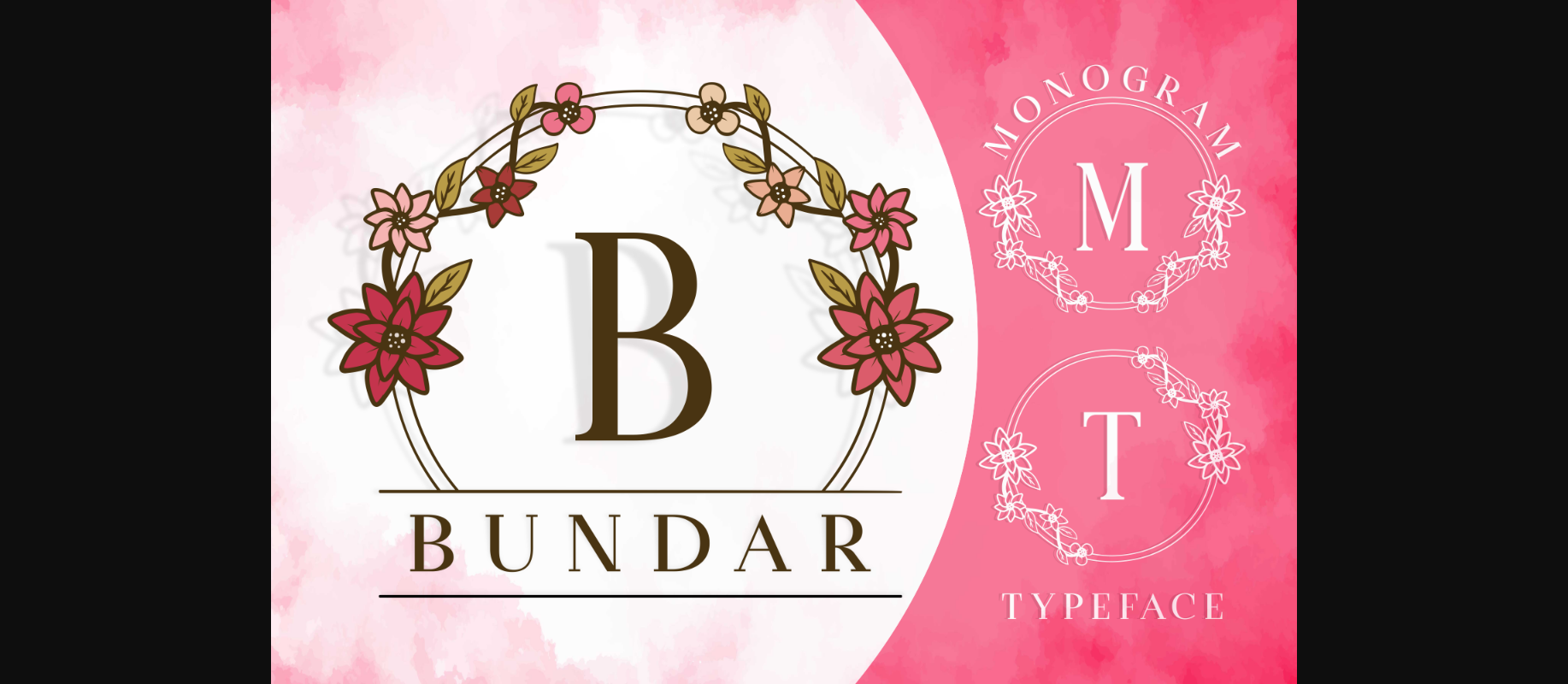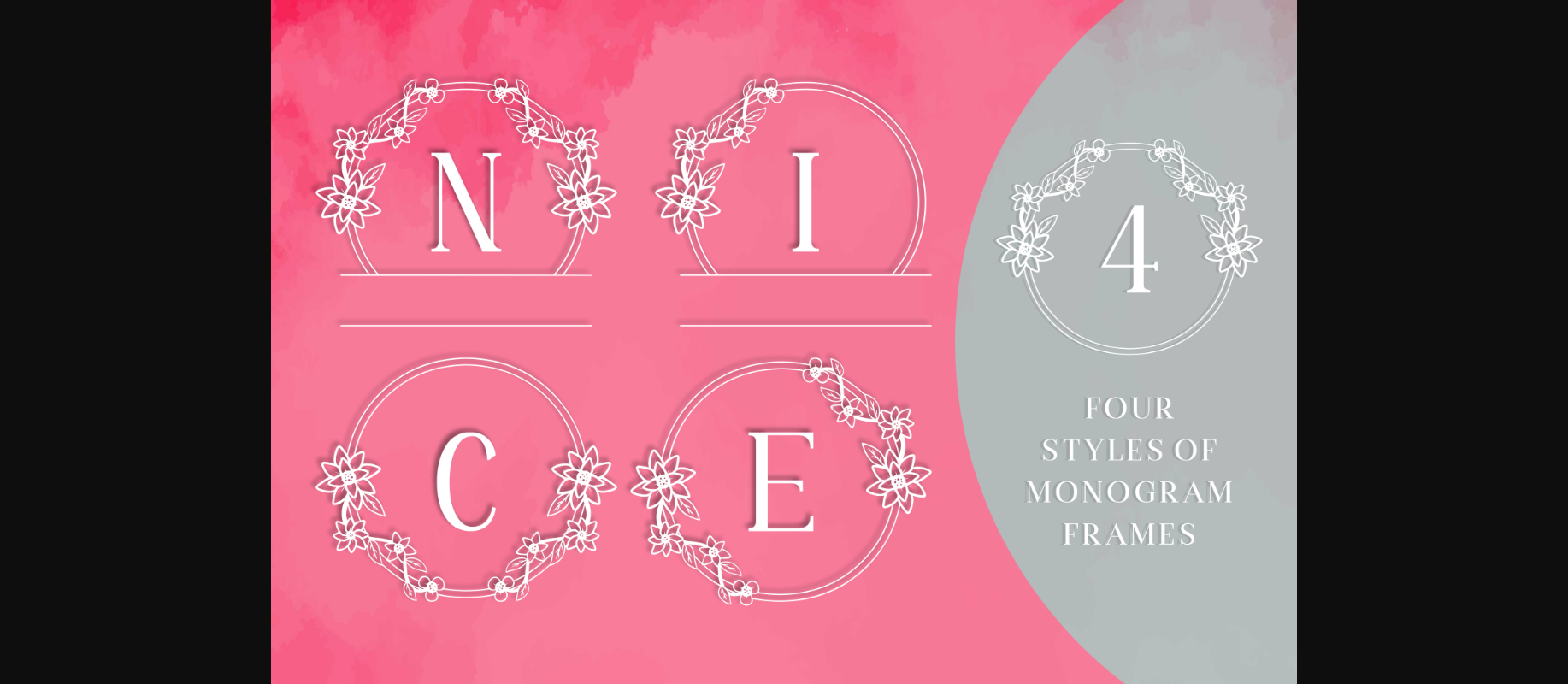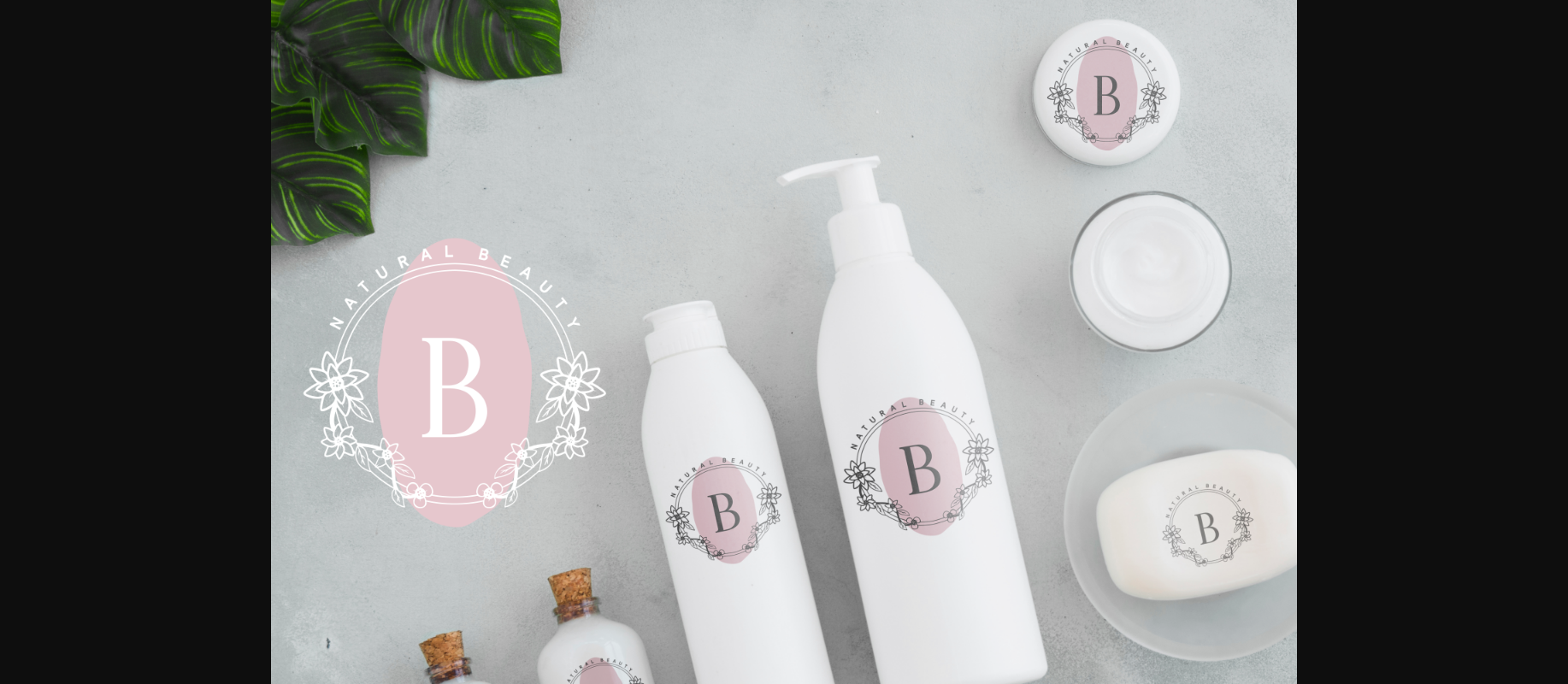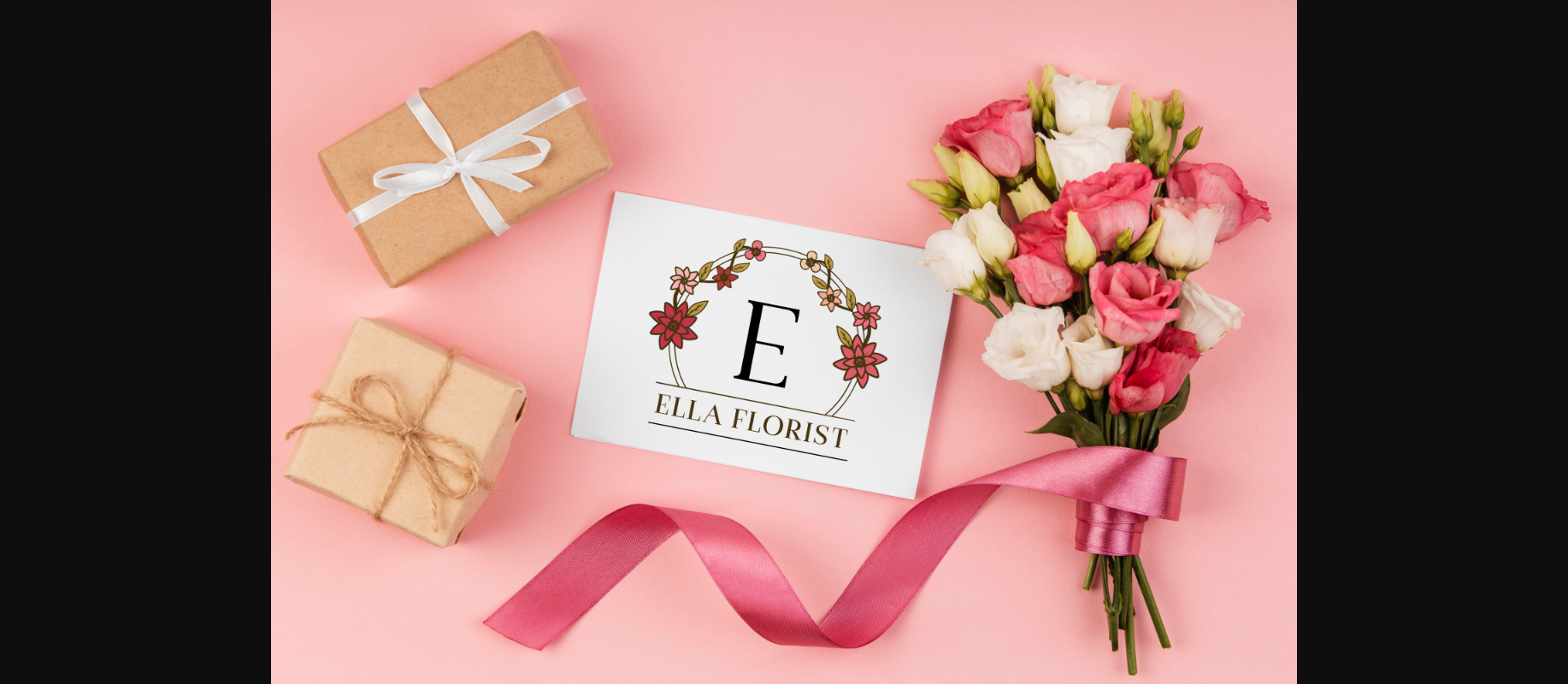
Bundar Font
About Bundar Font
Bundar is a detailed and delicate decorative font. Add this ravishing looking font to each of your love letters, wedding invitations or favorite design ideas, and you will be astounded by the outcome. Bundar is PUA encoded which means you can access all glyphs and swashes with ease!